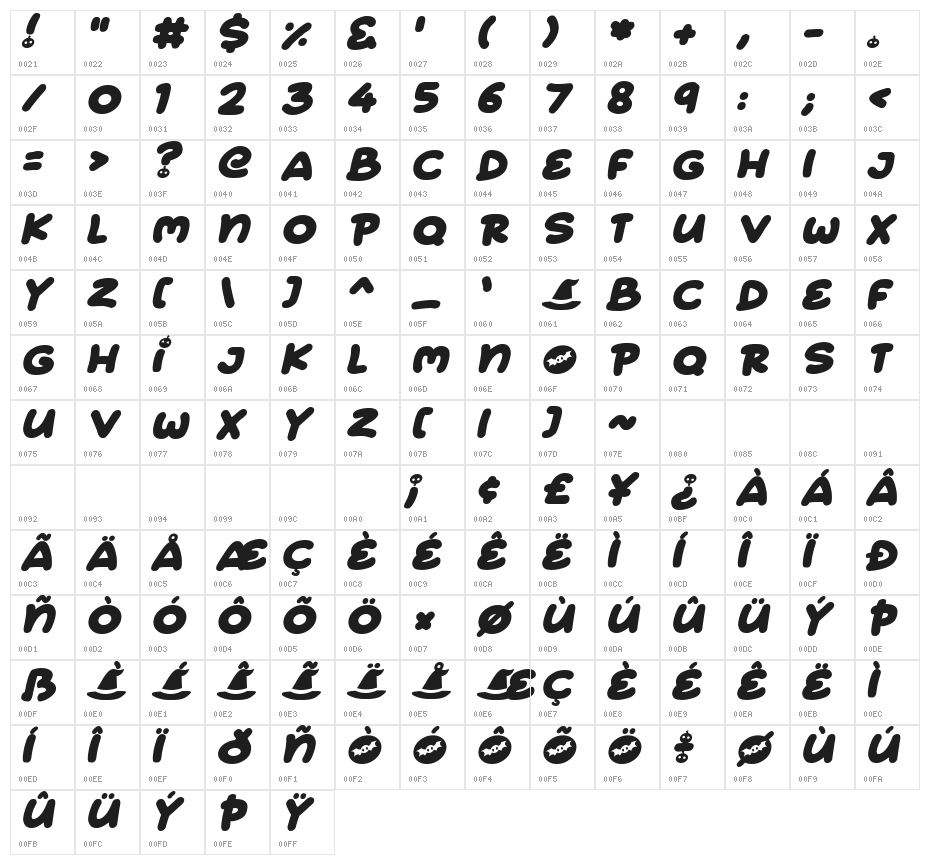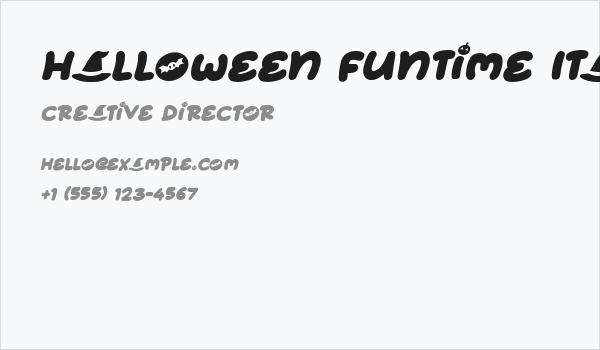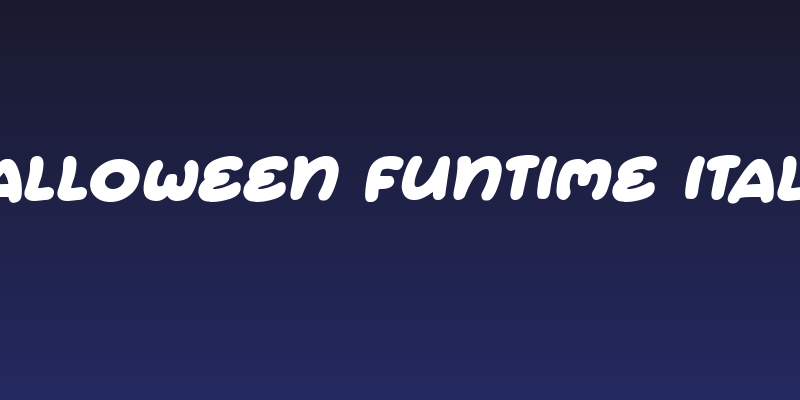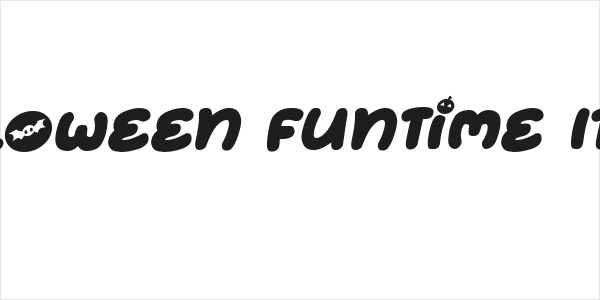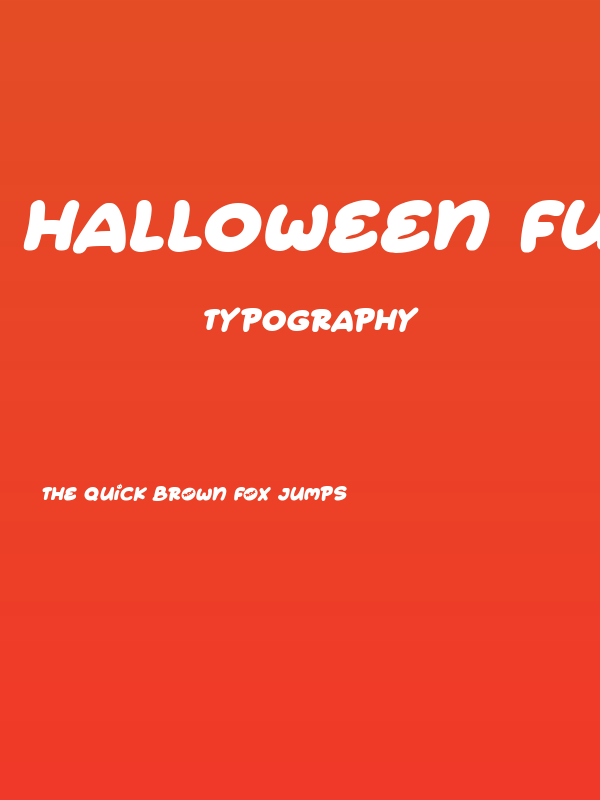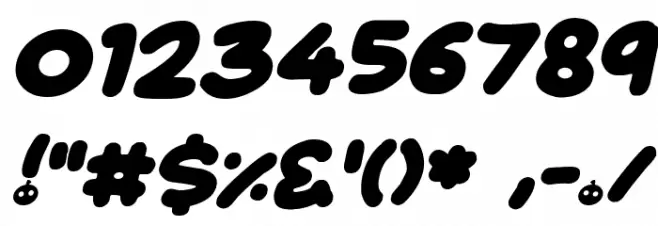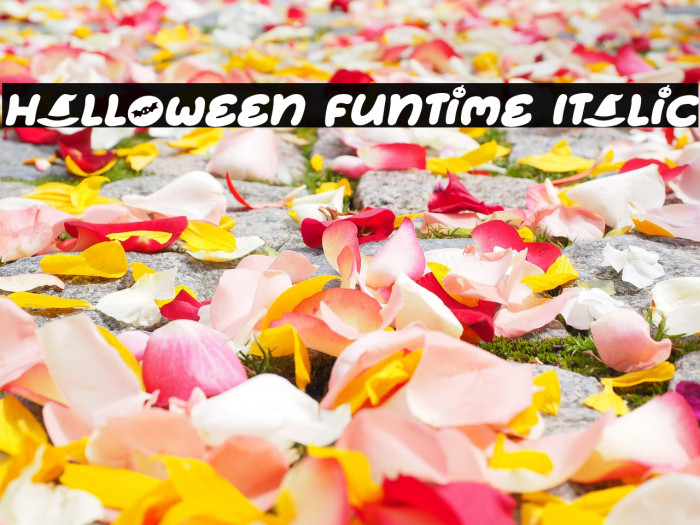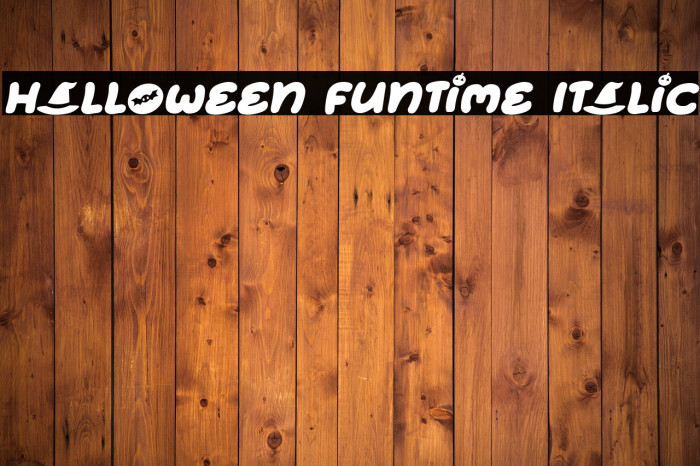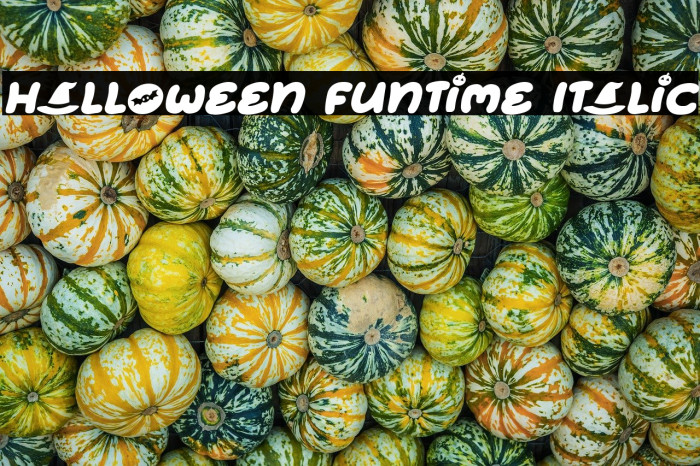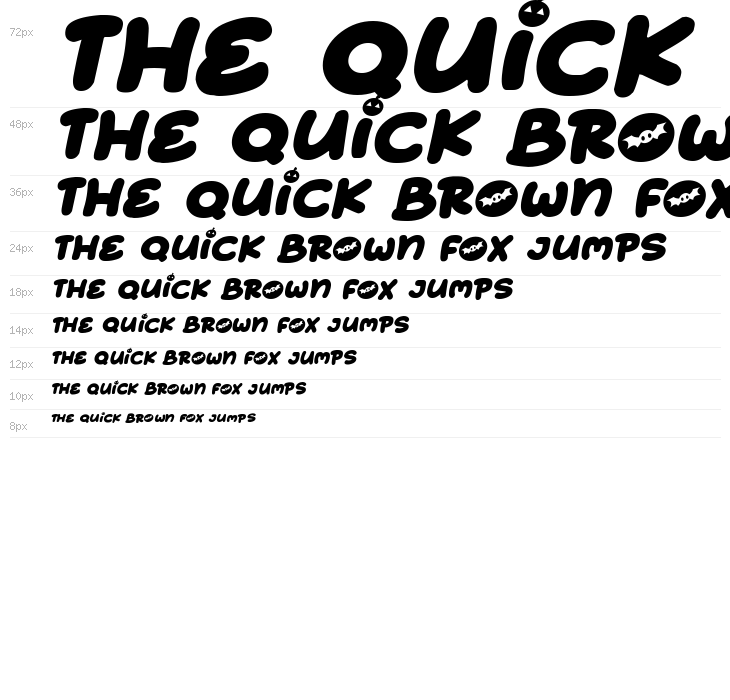
Halloween Funtime Italic Font
Halloween Funtime Italic Description
This playful and whimsical font features bold, rounded characters with a fun, cartoonish style. The letters have a slightly italicized slant, adding a dynamic and lively feel. The font includes unique, decorative elements, such as bats and other Halloween-themed motifs integrated into some characters, enhancing its festive appeal. The numbers and special characters maintain the same bold and rounded style, ensuring consistency throughout. This font is perfect for creating a joyful and spooky atmosphere, ideal for Halloween-themed projects.
| Use Case | Headlines, Logos, Themed Events |
| Proposed Projects | Ideal for Halloween invitations, party banners, themed posters, and children's book covers. |